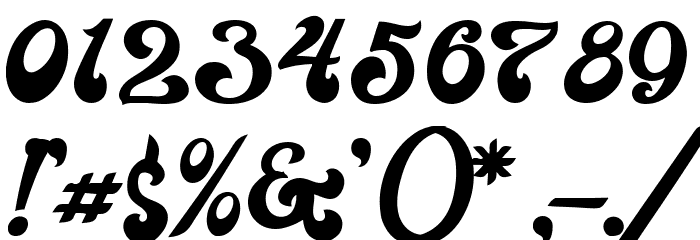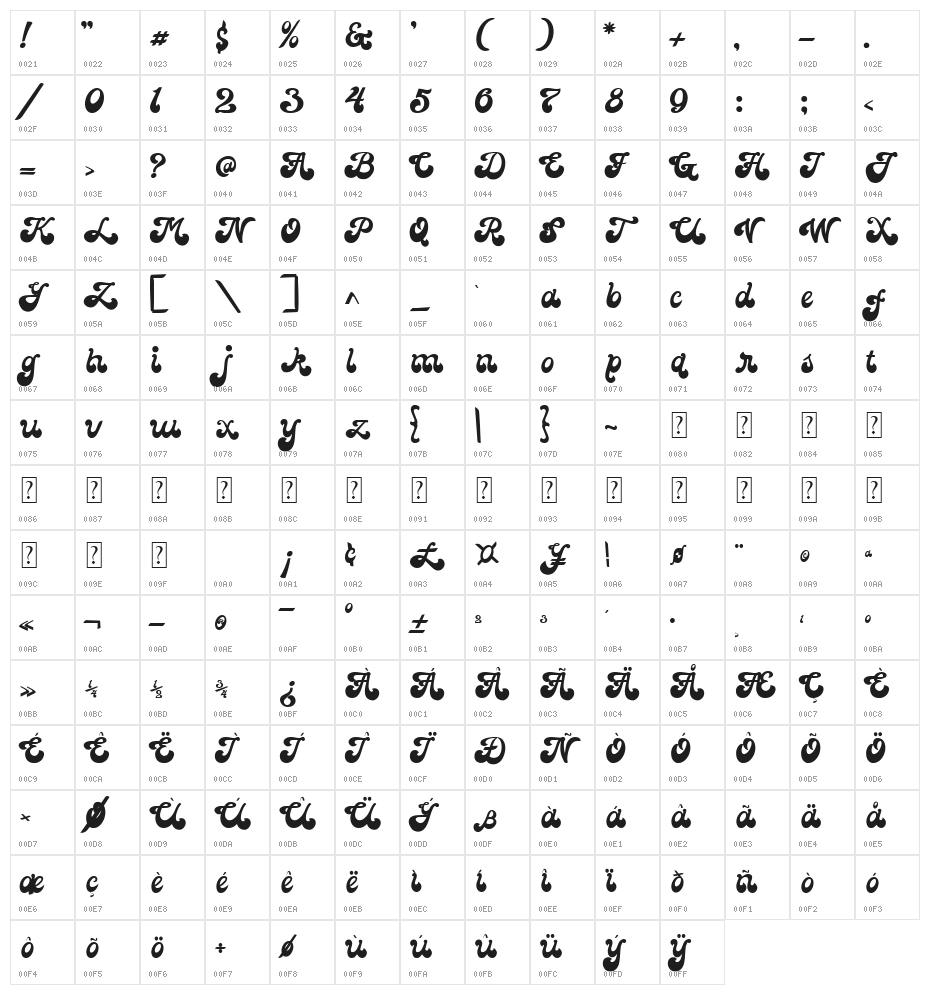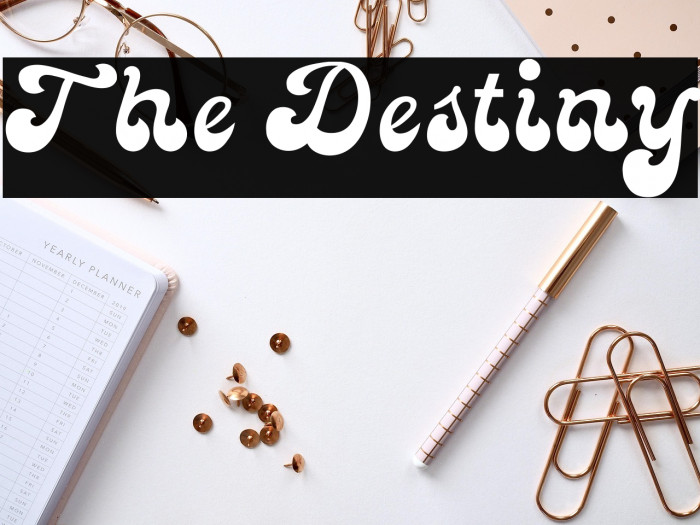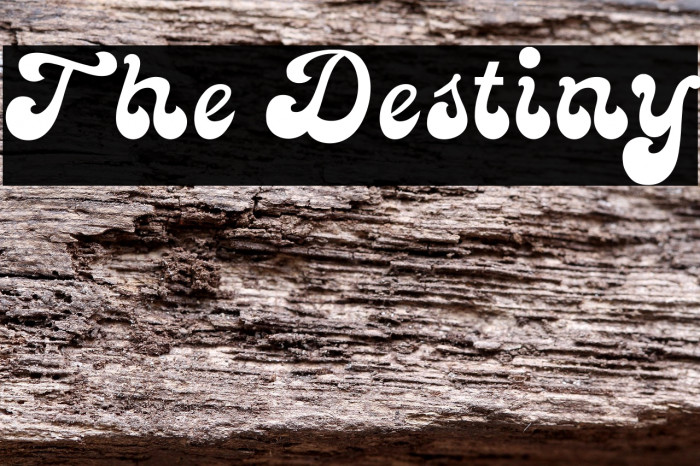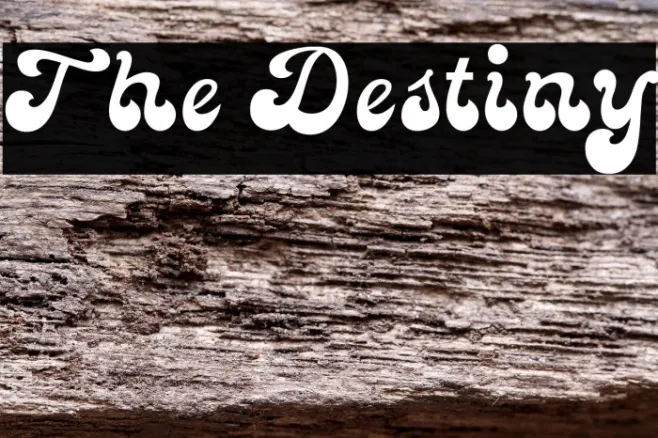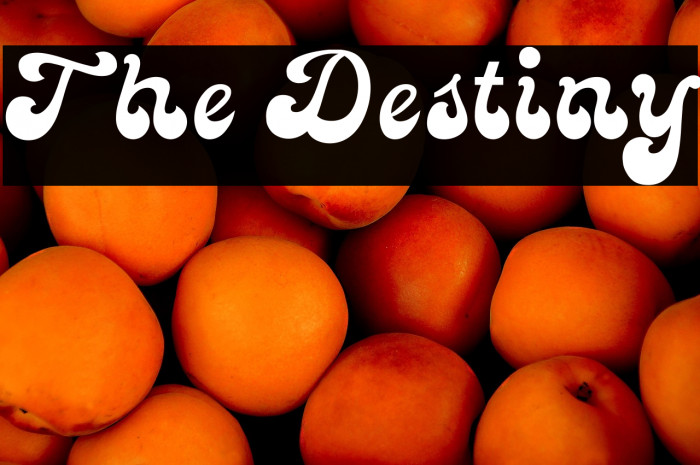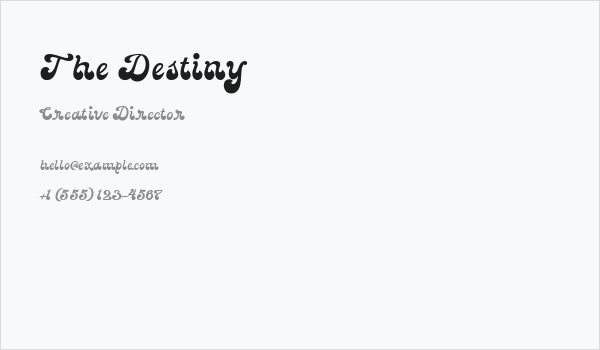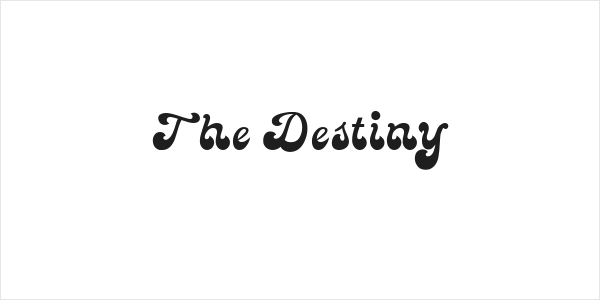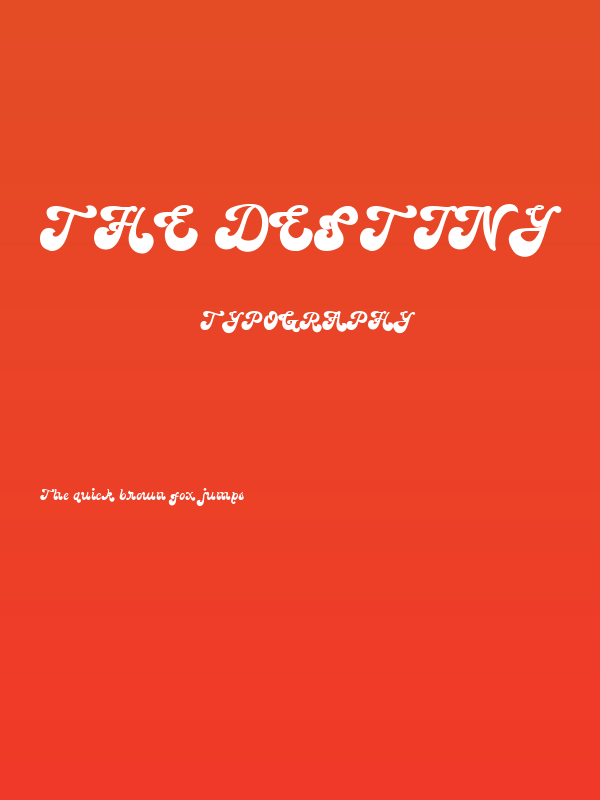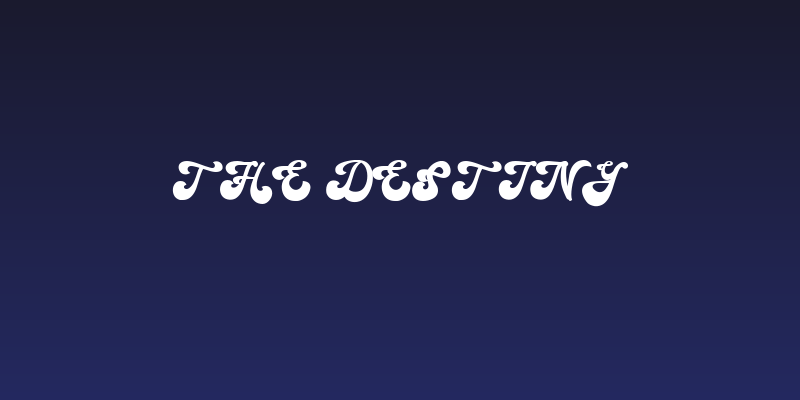
The Destiny Font
The Destiny Description
This font features a bold and playful script style with a distinct decorative flair. Each character is crafted with a whimsical touch, incorporating smooth curves and rounded edges that give it a lively and energetic appearance. The uppercase letters are particularly ornate, with exaggerated loops and swirls that add a sense of movement and dynamism. The lowercase letters maintain this playful aesthetic, offering a cohesive look across the alphabet. Numbers and special characters are equally stylized, ensuring consistency throughout. This font's unique design makes it stand out, perfect for projects that require a touch of fun and creativity.
| Overall Style | Playful, Decorative |
| Proposed Projects | Ideal for children's book covers, playful branding, greeting cards, and creative posters. |